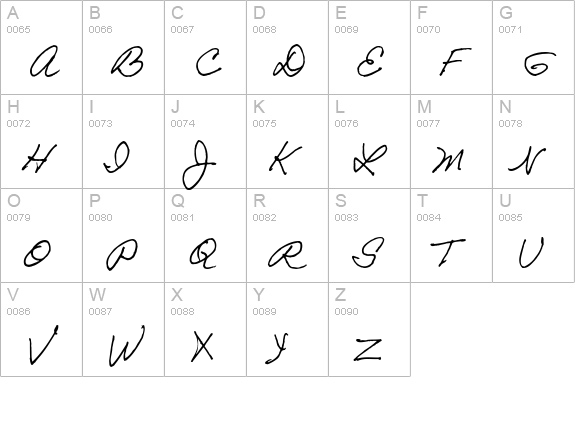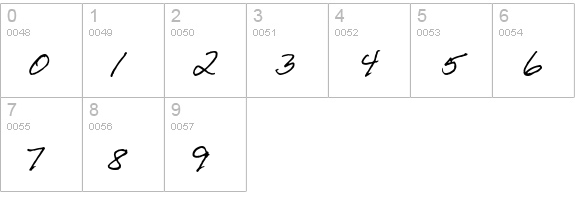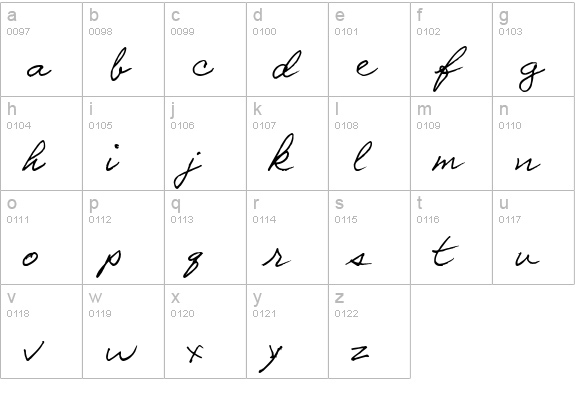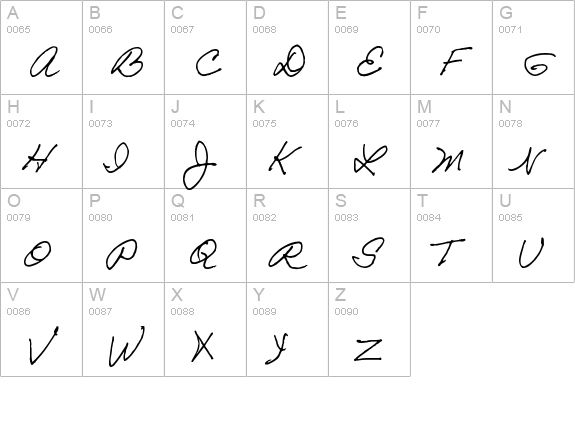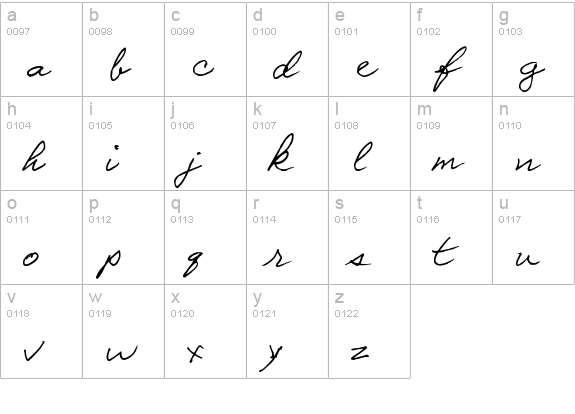
Galeforce BTN Font Details
Introducing Galeforce BTN, a captivating and versatile font that will instantly elevate the aesthetic appeal of any design project. This font boasts a perfect balance between elegance and modernity, making it suitable for a wide range of creative applications. With its clean and crisp lines, Galeforce BTN exudes a sense of sophistication and professionalism. Whether you're designing a logo, crafting eye-catching headlines, or creating stunning typographic art, this font is sure to leave a lasting impression. One of the most remarkable aspects of Galeforce BTN is that it is freely available to download at FontsMarket.com. Yes, you heard that right – this incredible font can be yours at no cost! Now, you can enhance your designs without breaking the bank, making it an ideal choice for both personal and commercial projects. Not only does Galeforce BTN offer unbeatable value, but it also provides an extensive range of characters and glyphs. From uppercase and lowercase letters to numerals, punctuation marks, and even stylish ligatures, this font has everything you need to unleash your creativity and bring your ideas to life. Furthermore, Galeforce BTN is exceptionally easy to work with. Its user-friendly design ensures seamless integration into various design software, allowing you to effortlessly customize and experiment with different styles and layouts. Whether you're a seasoned designer or a beginner, this font will provide you with the flexibility and versatility you need to achieve your desired visual impact. So why wait? Download Galeforce BTN for free at FontsMarket.com and discover the endless possibilities that await you. Elevate your designs to new heights with this exceptional font and let your creativity soar.